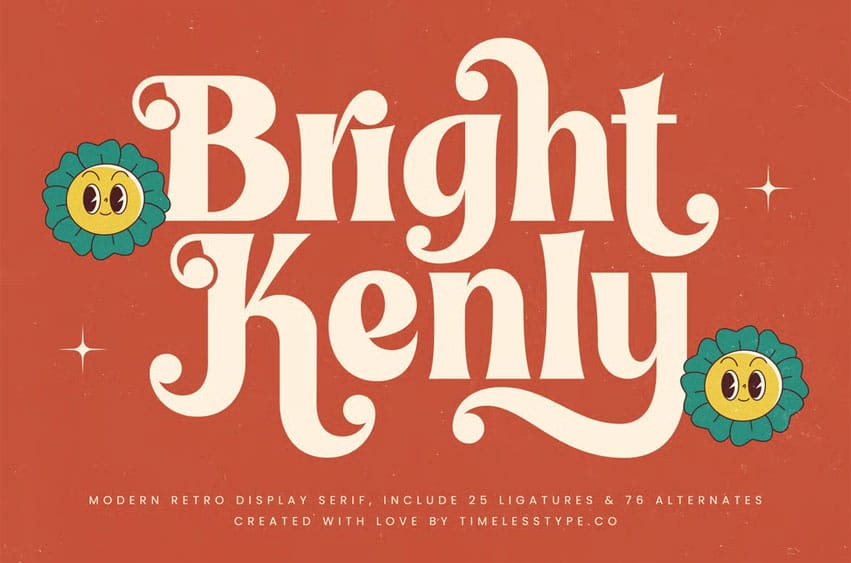
Bright Kenly Font is a modern retro display serif font that captures cheerful charm and vintage flair. With 25 ligatures and 76 alternates, this typeface blends playful curves with elegant structure, making it perfect for branding, posters, packaging, and editorial projects that radiate positivity and nostalgia.
Inspired by groovy 70s design and modern aesthetics, Bright Kenly delivers bold personality and smooth flow in every character. It’s a perfect choice for designers seeking a creative typeface that brings warmth, fun, and sophistication together in one timeless look.